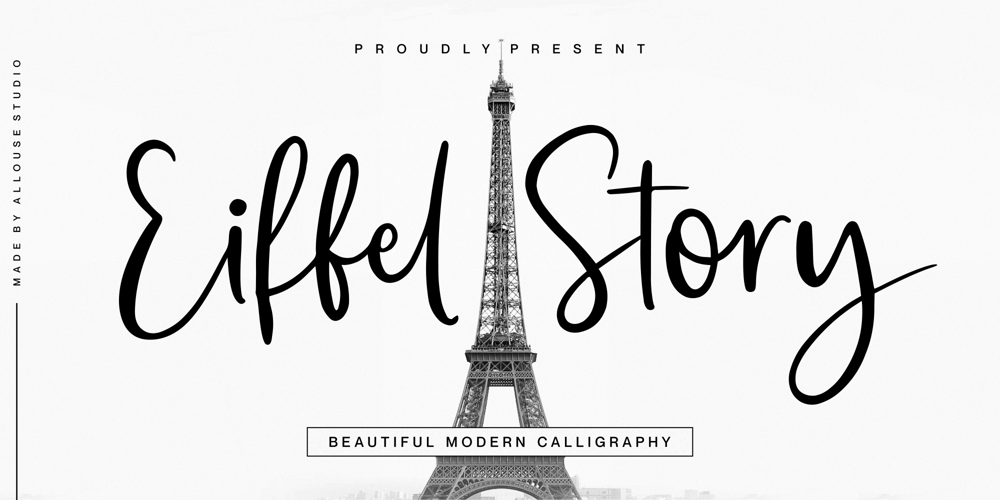
Eiffel Story Font Family was designed by Fachrizal Yusuf and published by Allouse Studio. Eiffel Story contains 1 styles and family package options. Proudly Presenting, Eiffel Story a Beautiful Modern Calligraphy.Eiffel Story is perfect for any titles, logo, product packaging, branding project, megazine, social media, wedding, or just used to express words above the background.Eiffel Story also come with Multi-Lingual Support.Enjoy the font, feel free to comment or feedback, send me PM or email. Thank You!